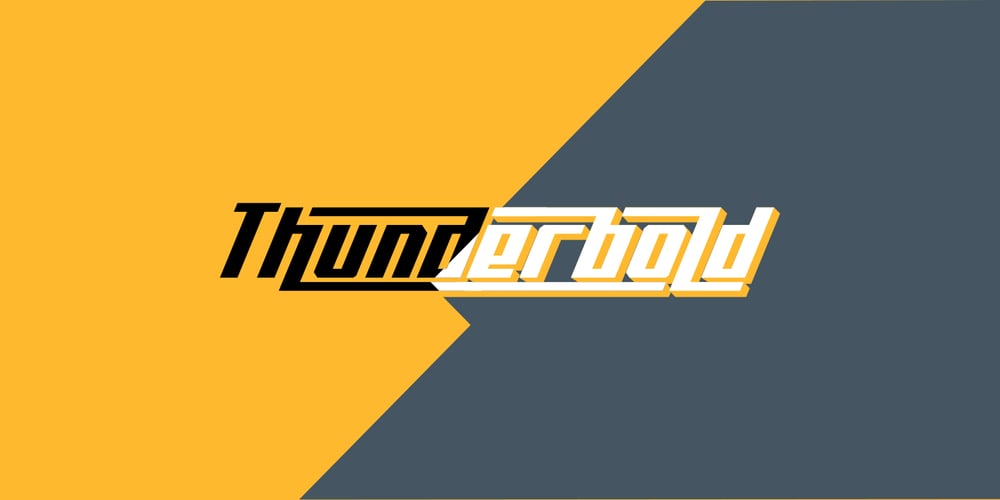
Thunderbold Font Family was designed by Gumilang Anggara Ruslan and published by Gartype Studio. Thunderbold contains 2 styles and family package options. Thunderbold is inspired by “Fast & Bold character” so,this is a powerful font suitable for poster, banner, flyer, race number, logo, logotype and more.This font have an extrude style to save your time to make extruded fonts just switch to extrude style!.Not just that, Thunderbold have a lot of Alternate too. Be bold like Thunder !